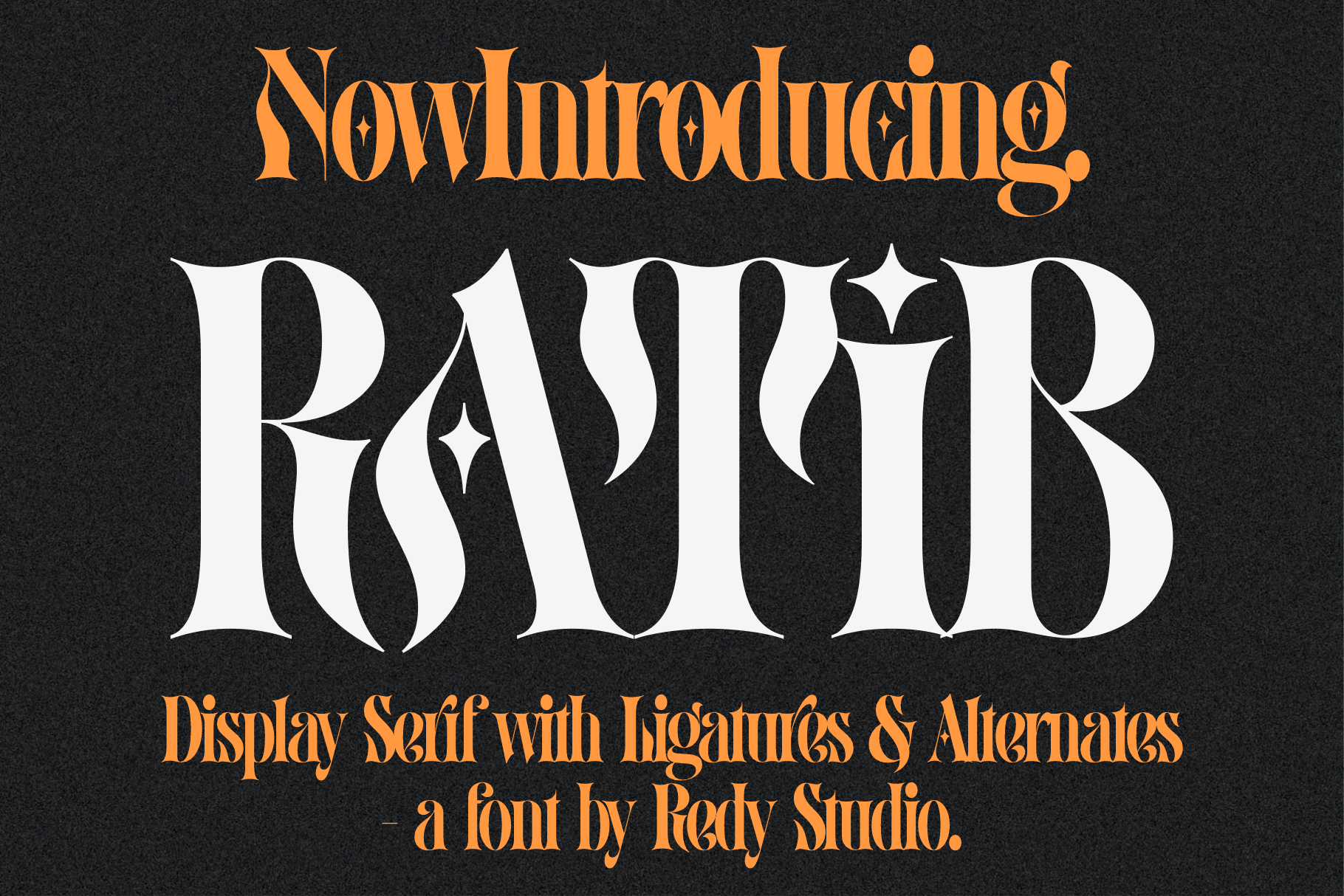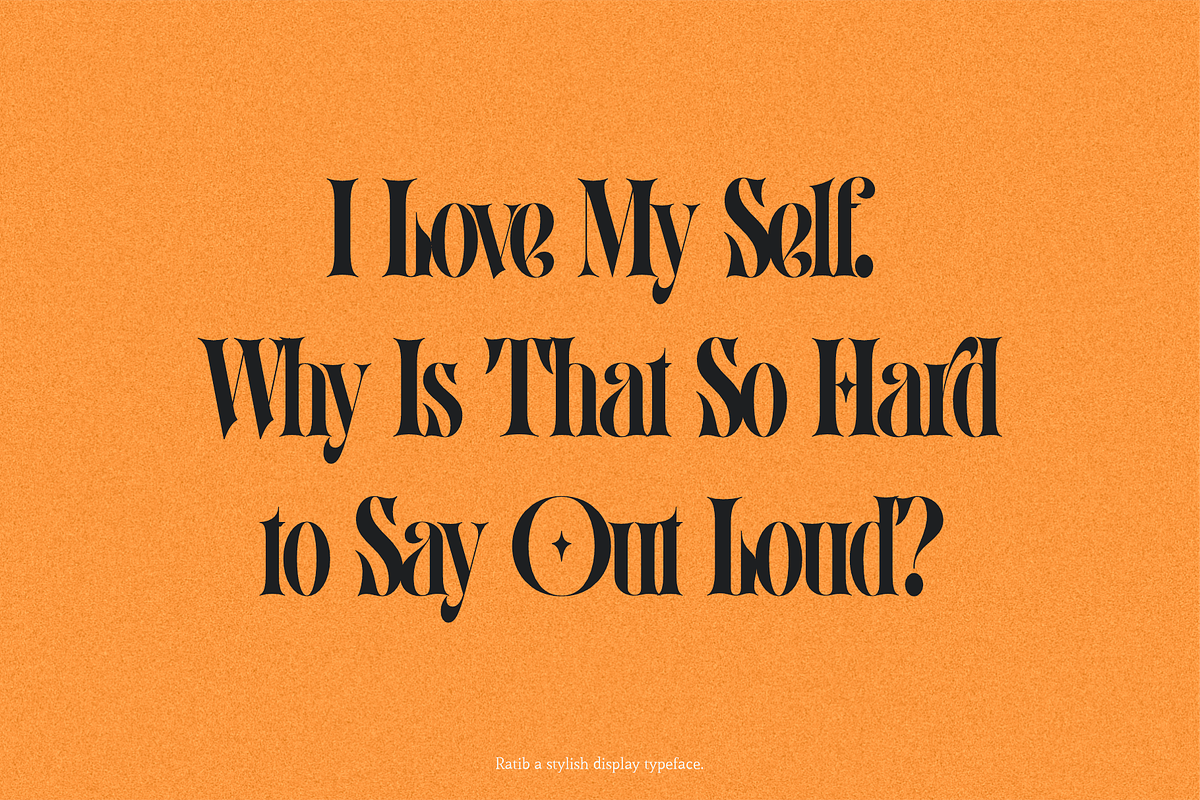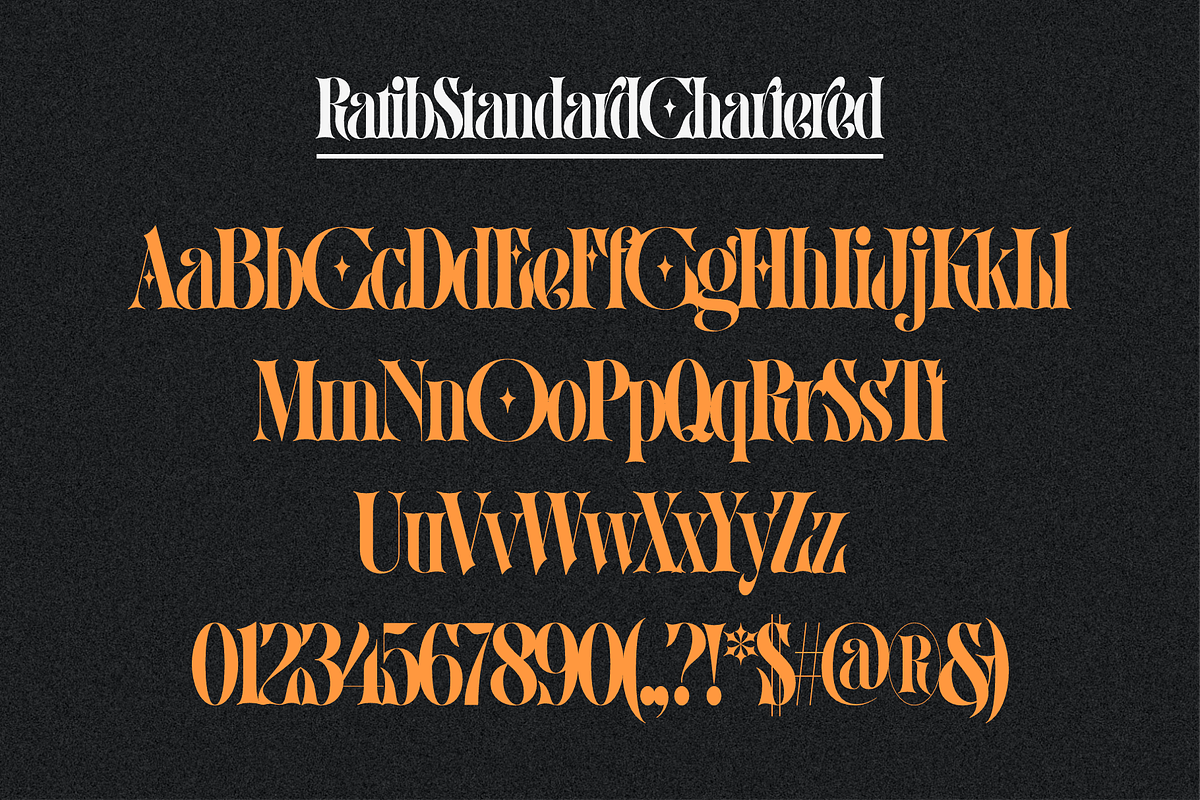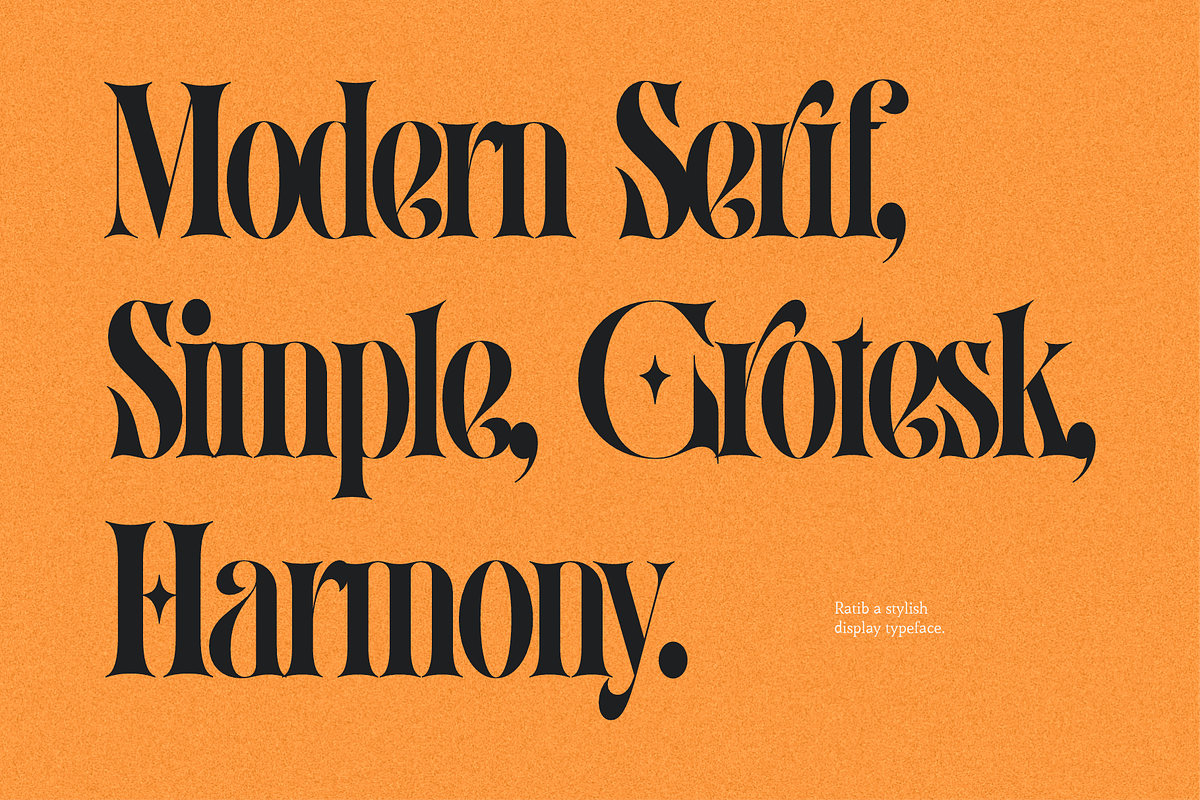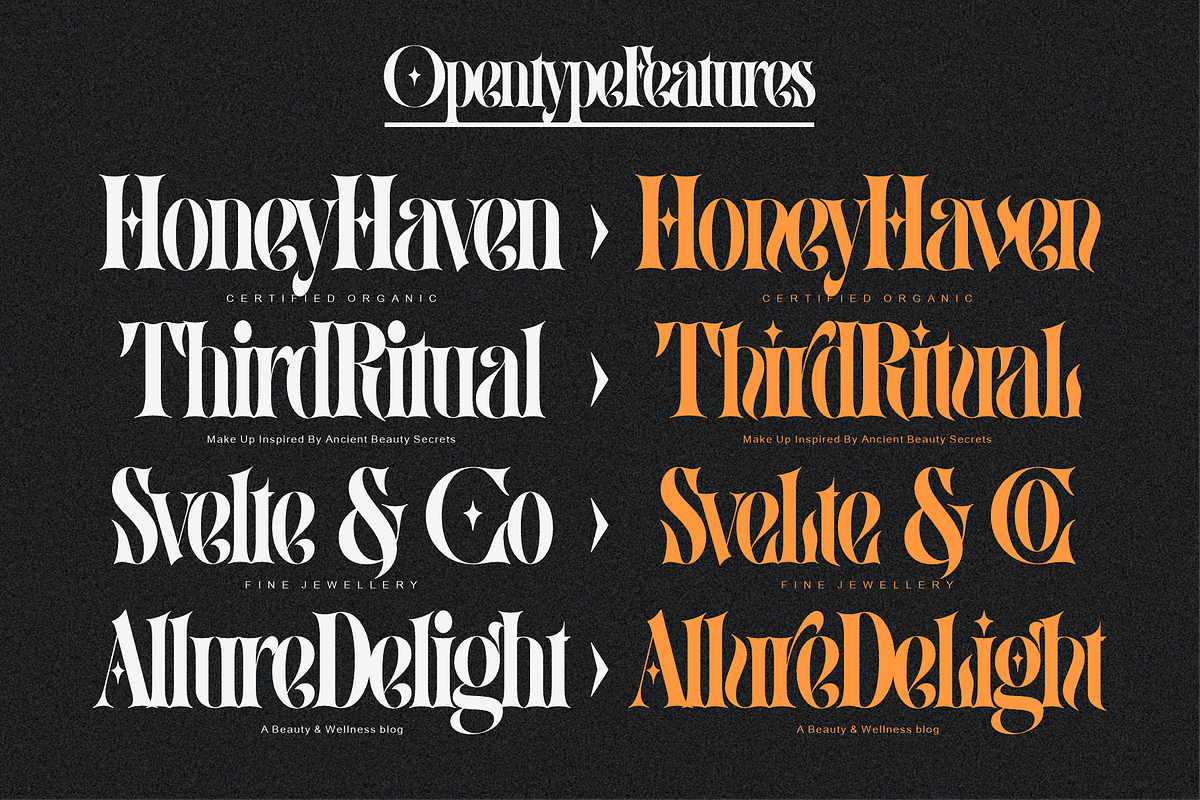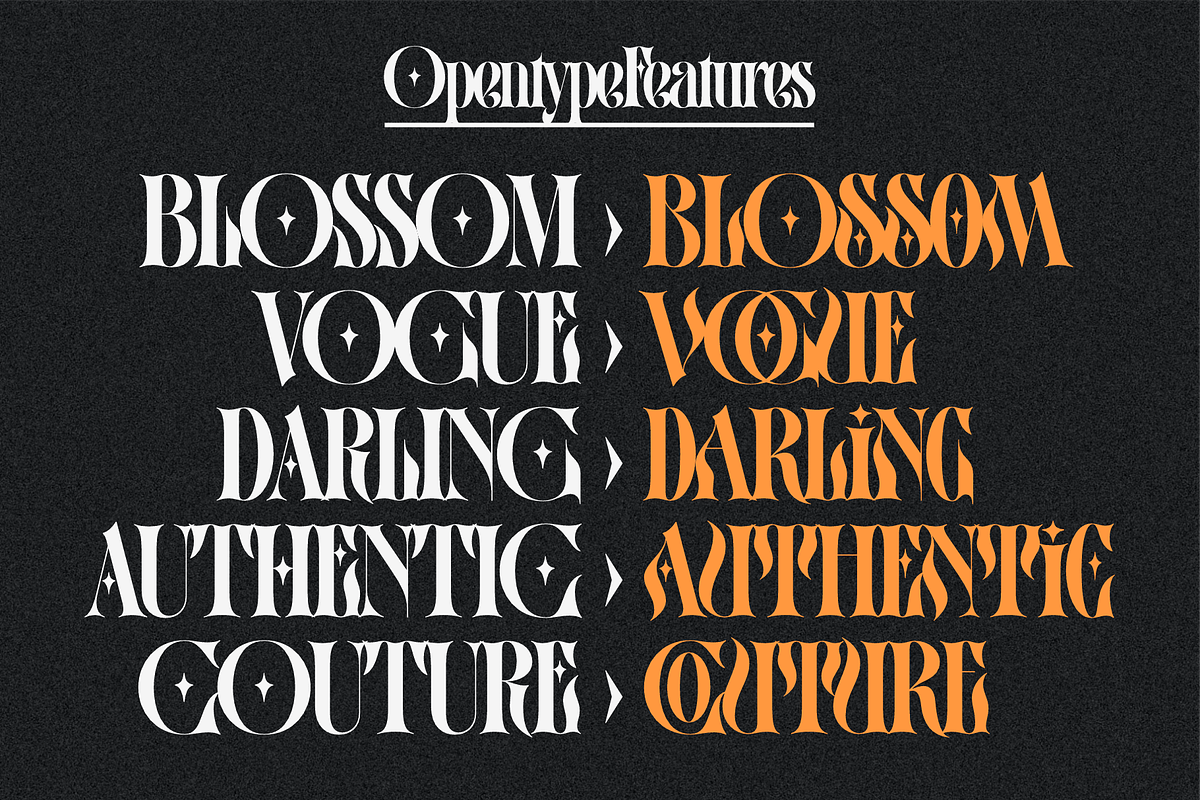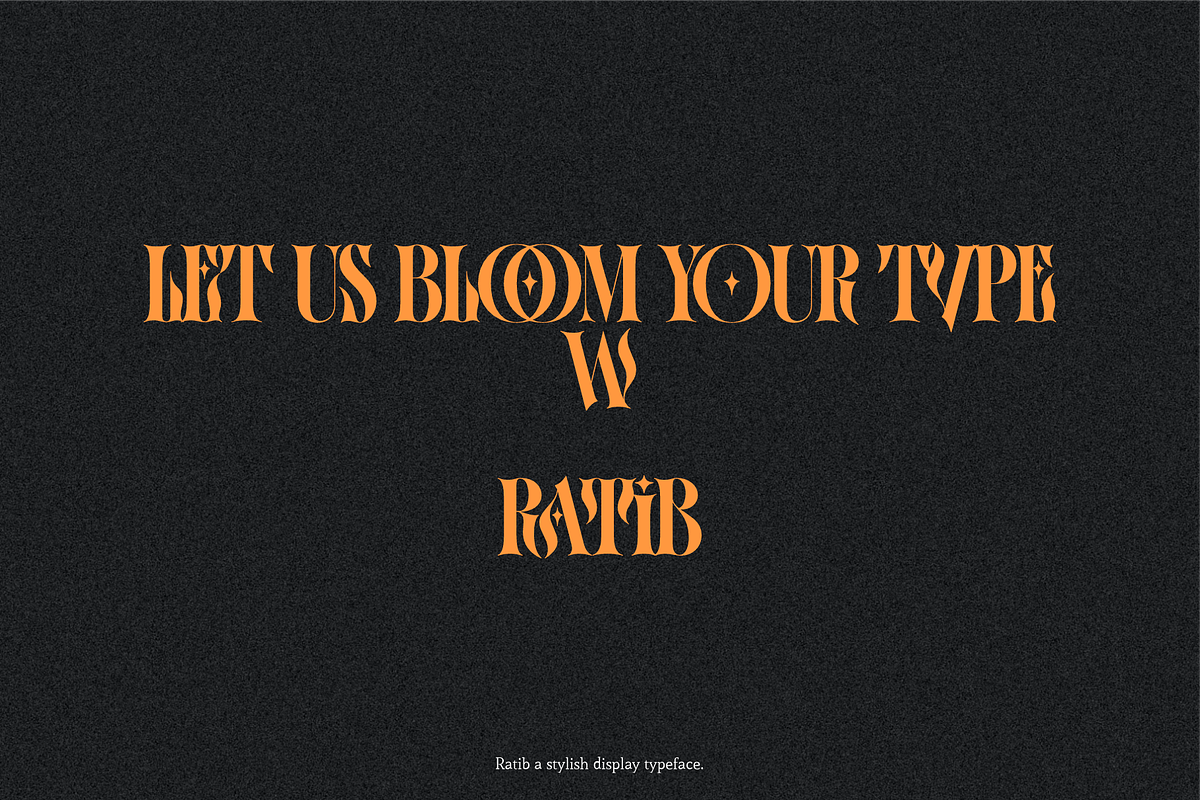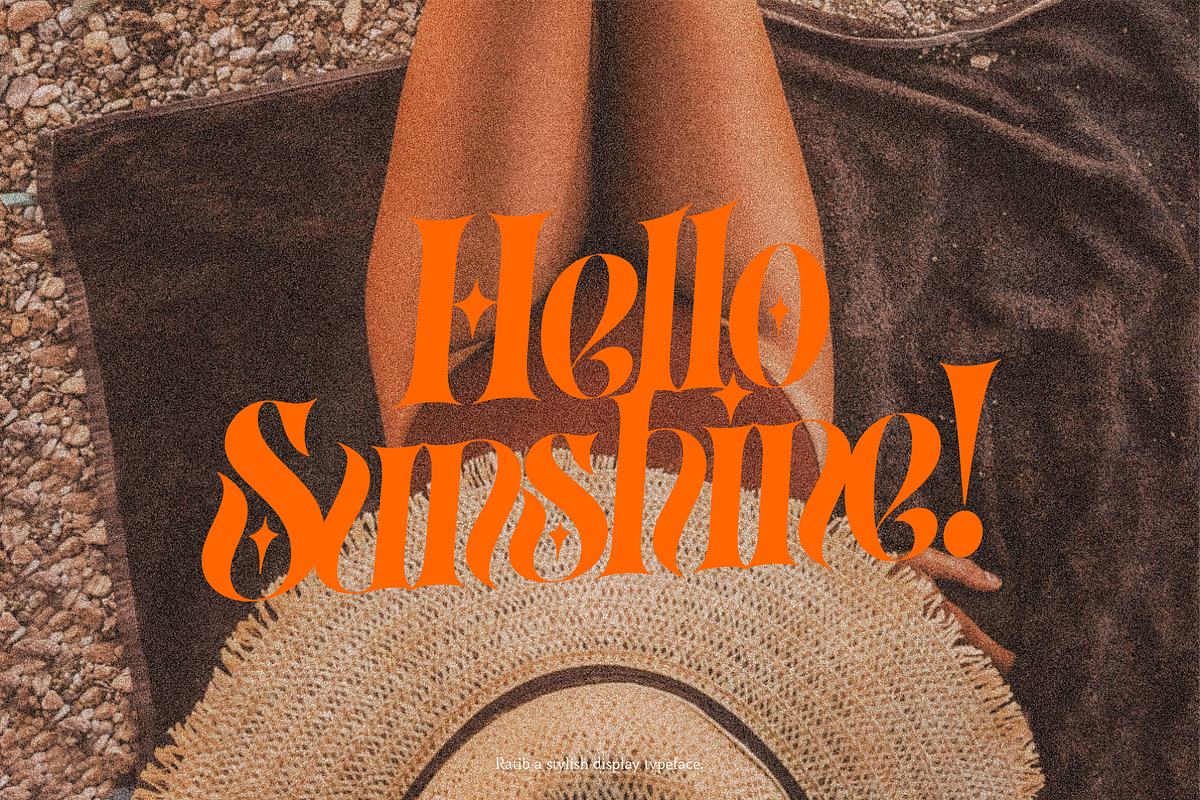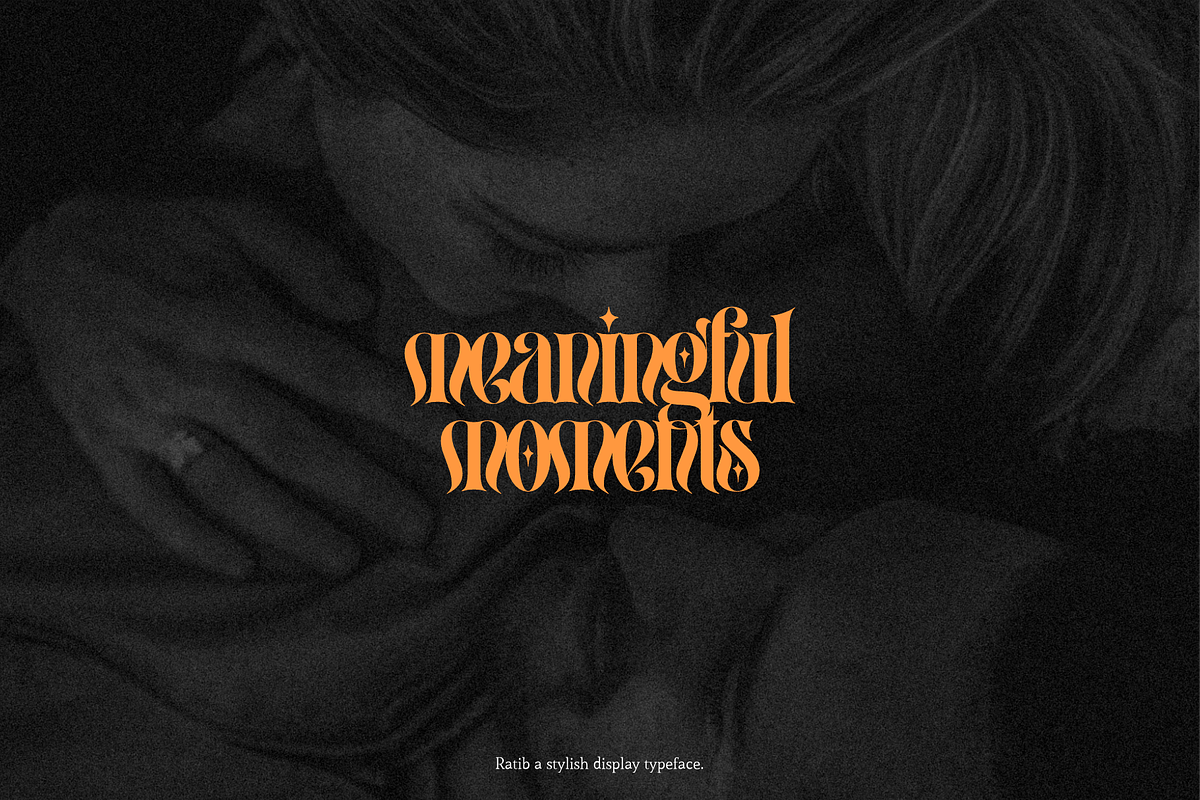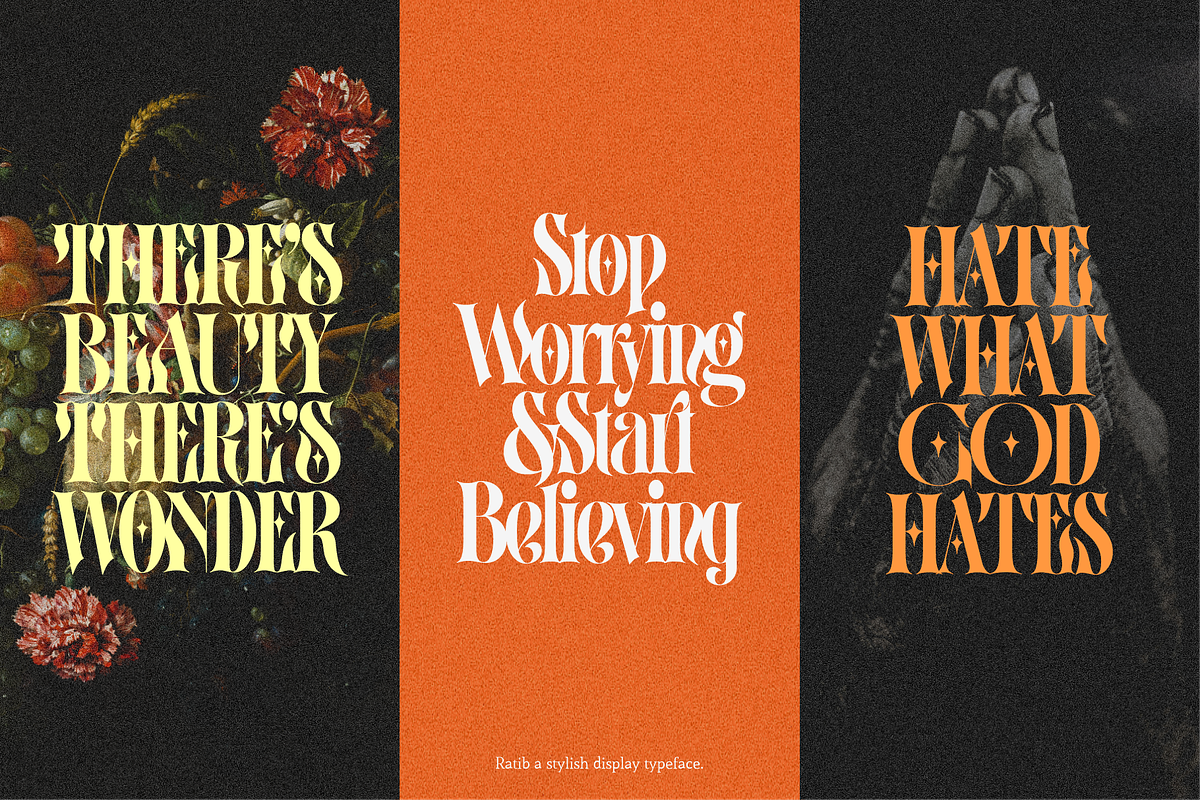
Ratib – Modern Serif Font
Introducing Ratib display font is a fantastic choice for you looking for a bold, stylish, and versatile vintage serif family with alternates and awesome ligatures that you can combine to get curves and beautiful shapes easily just in seconds. With its clean lines, sharp serifs, and strong appearance, Ratib display font is perfect for many different uses. Whether it's a fancy retro-inspired logo, or engaging bold header text.
- Alternative Character
- Dlig Ligatures
- Stylistic Sets